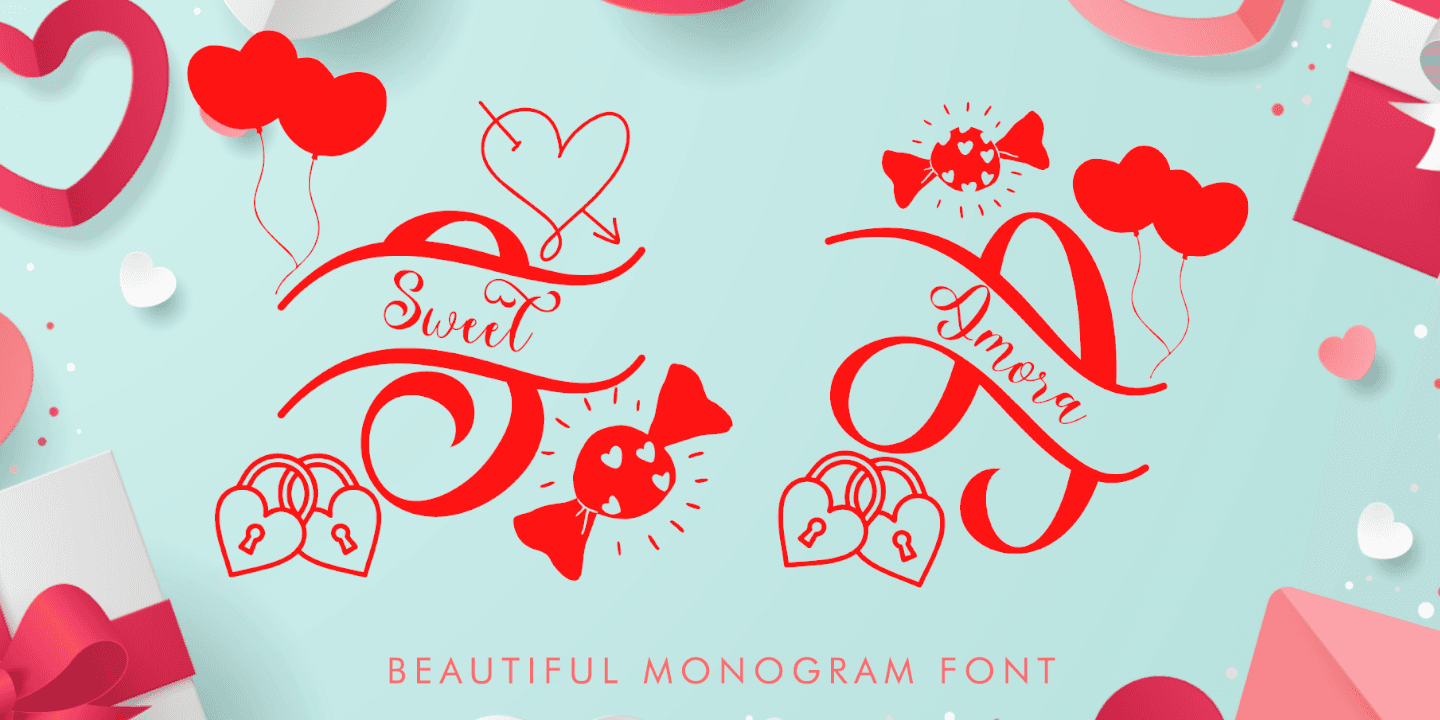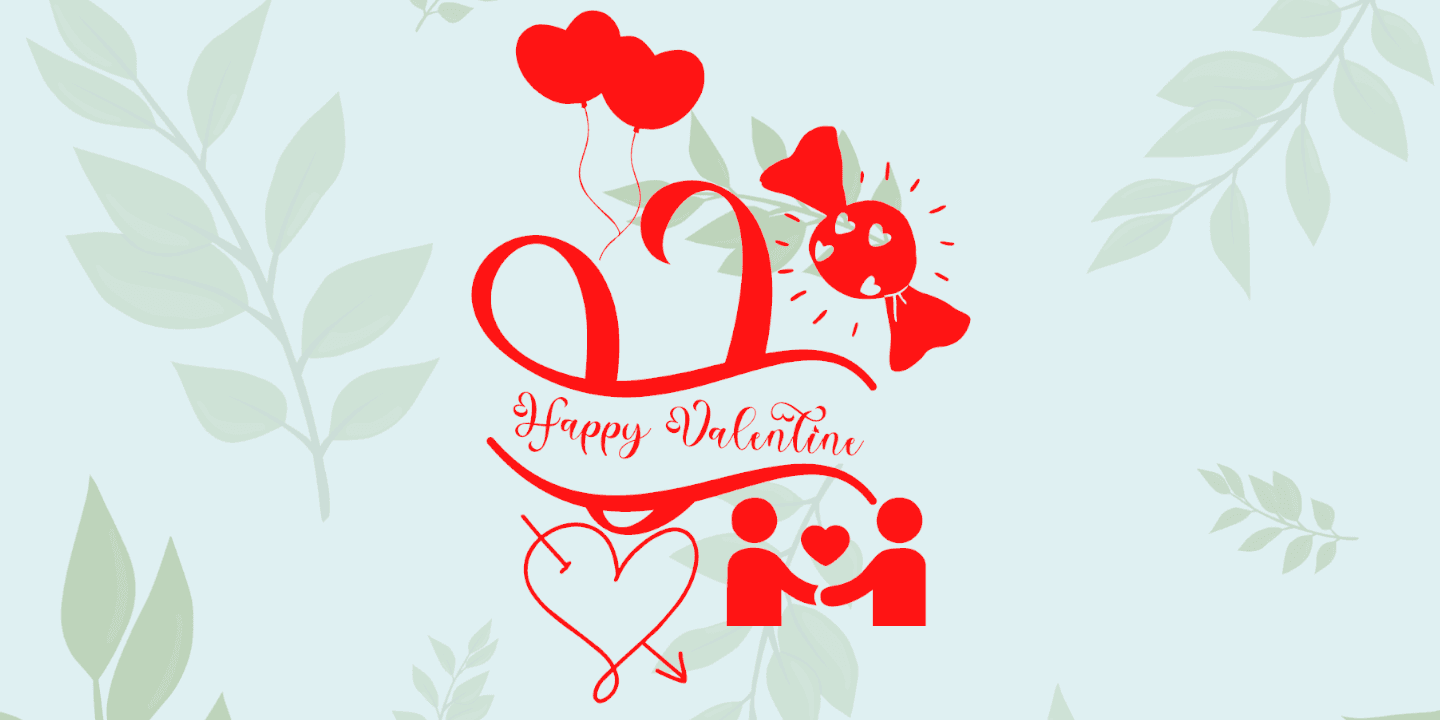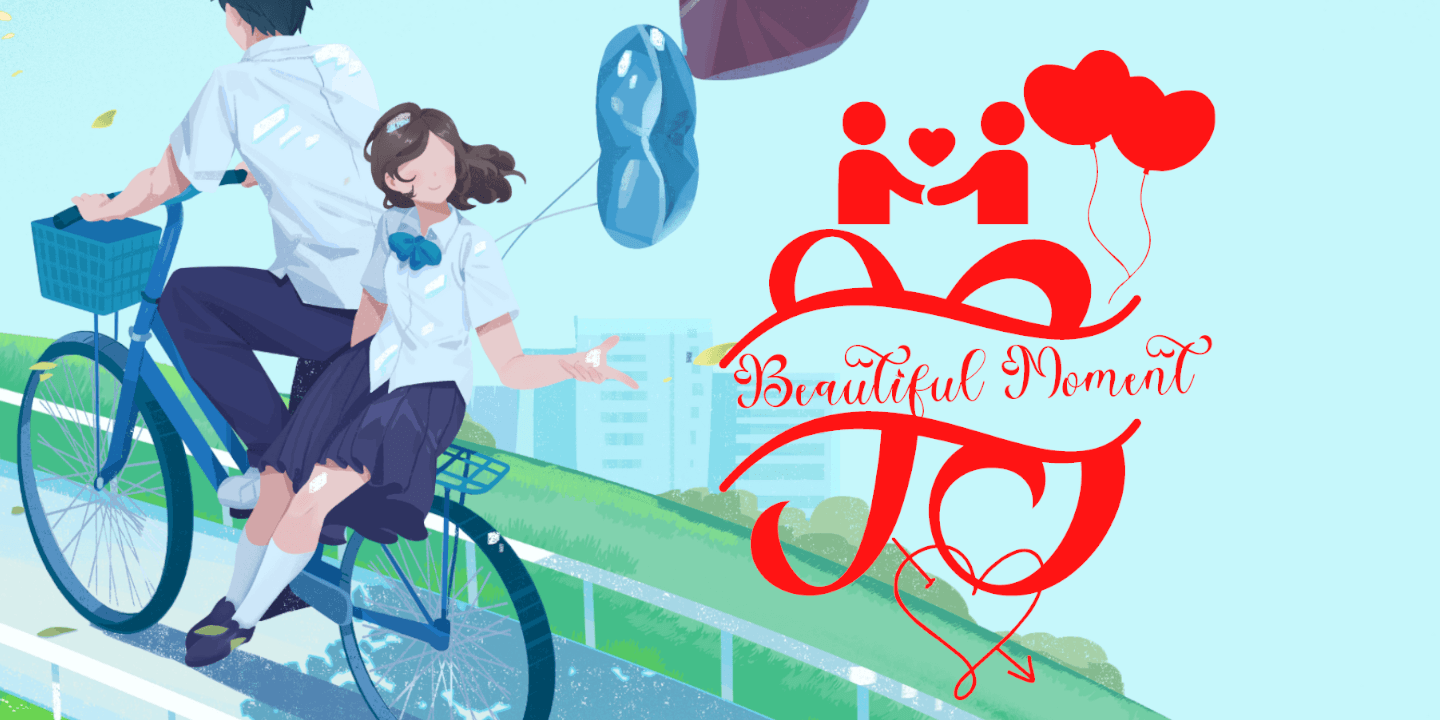
Sweet Amora
by Yoga Letter
"Sweet Amora Monogram" is a beautiful and lovely monogram font. Available in regular and italic styles, it features monograms, uppercase and lowercase letters, numerals, punctuations, and multilingual support. It's perfect for Christmas, Valentine's Day, weddings, invitations, gifts, prints, winter logos, stickers, holidays, vacations, summer, and more.